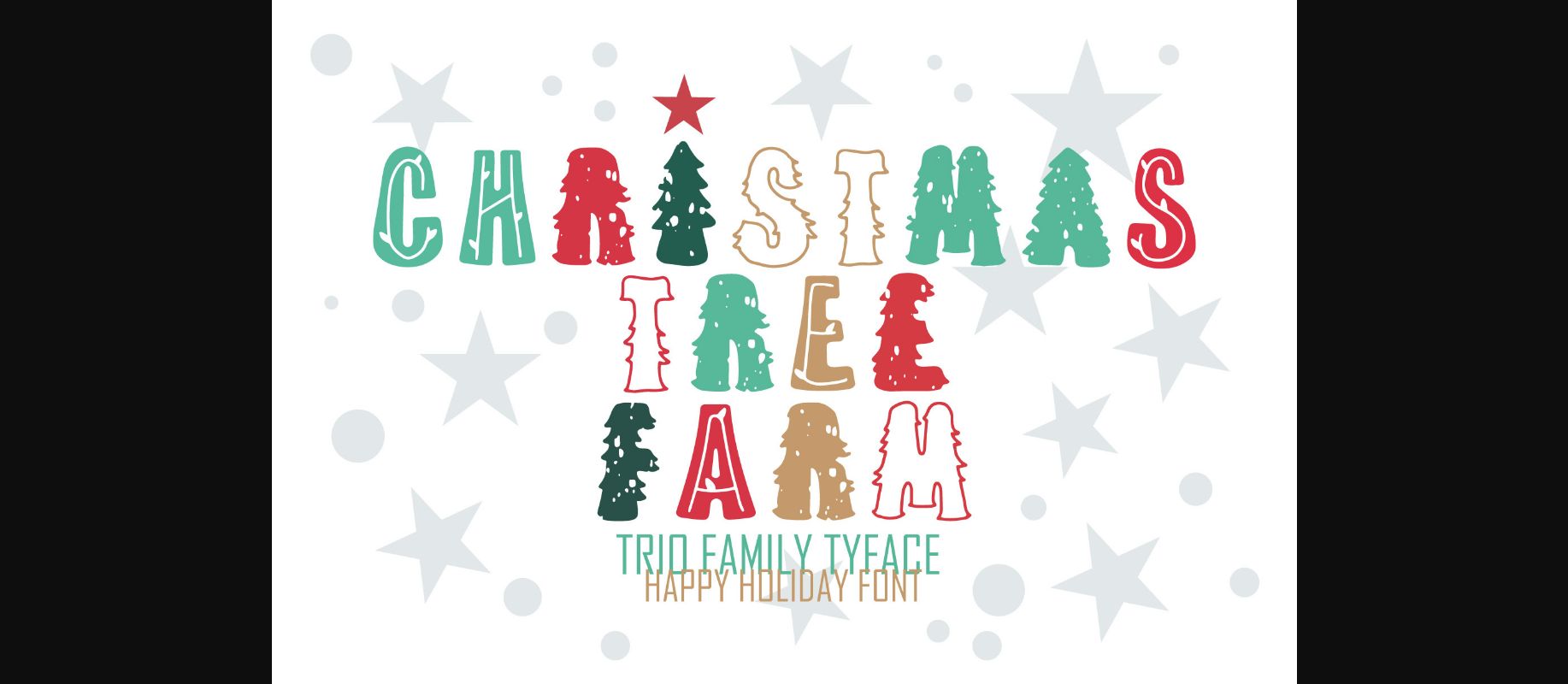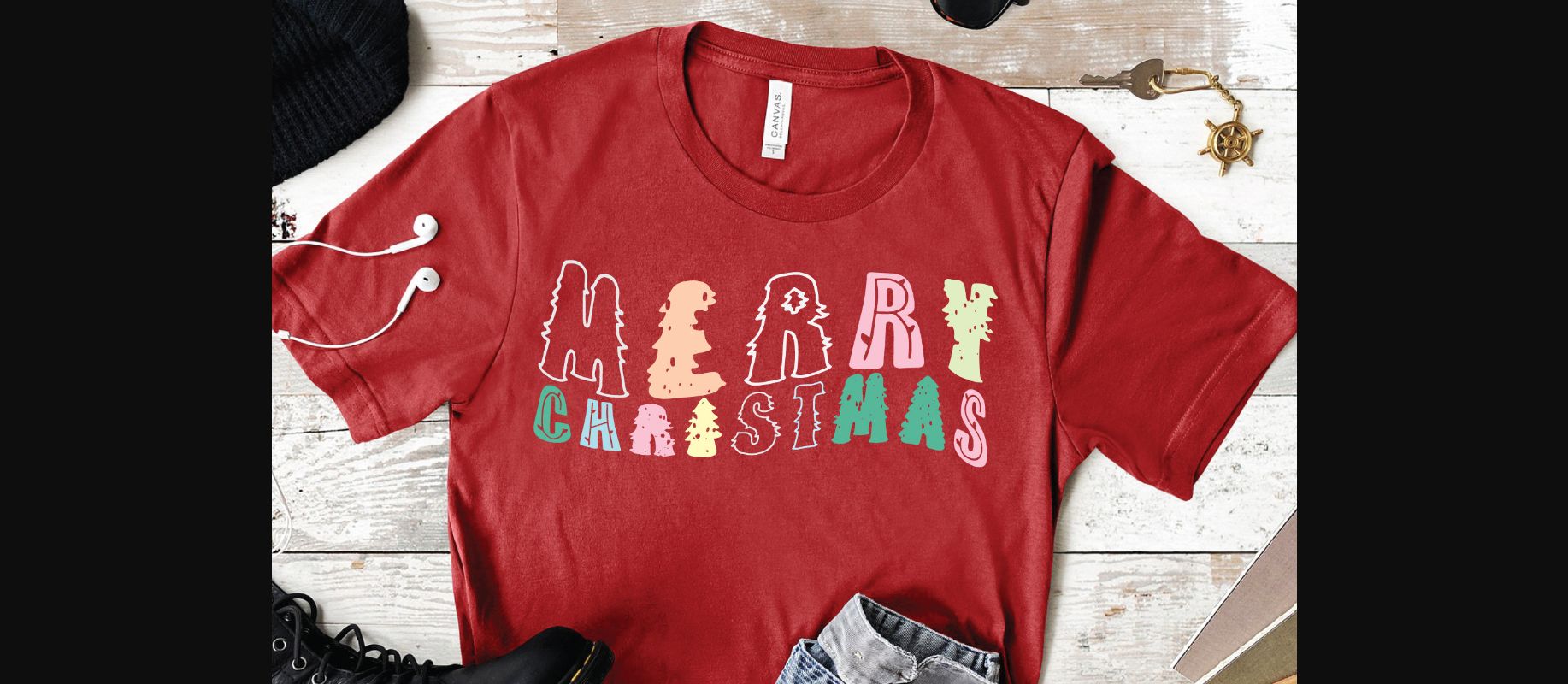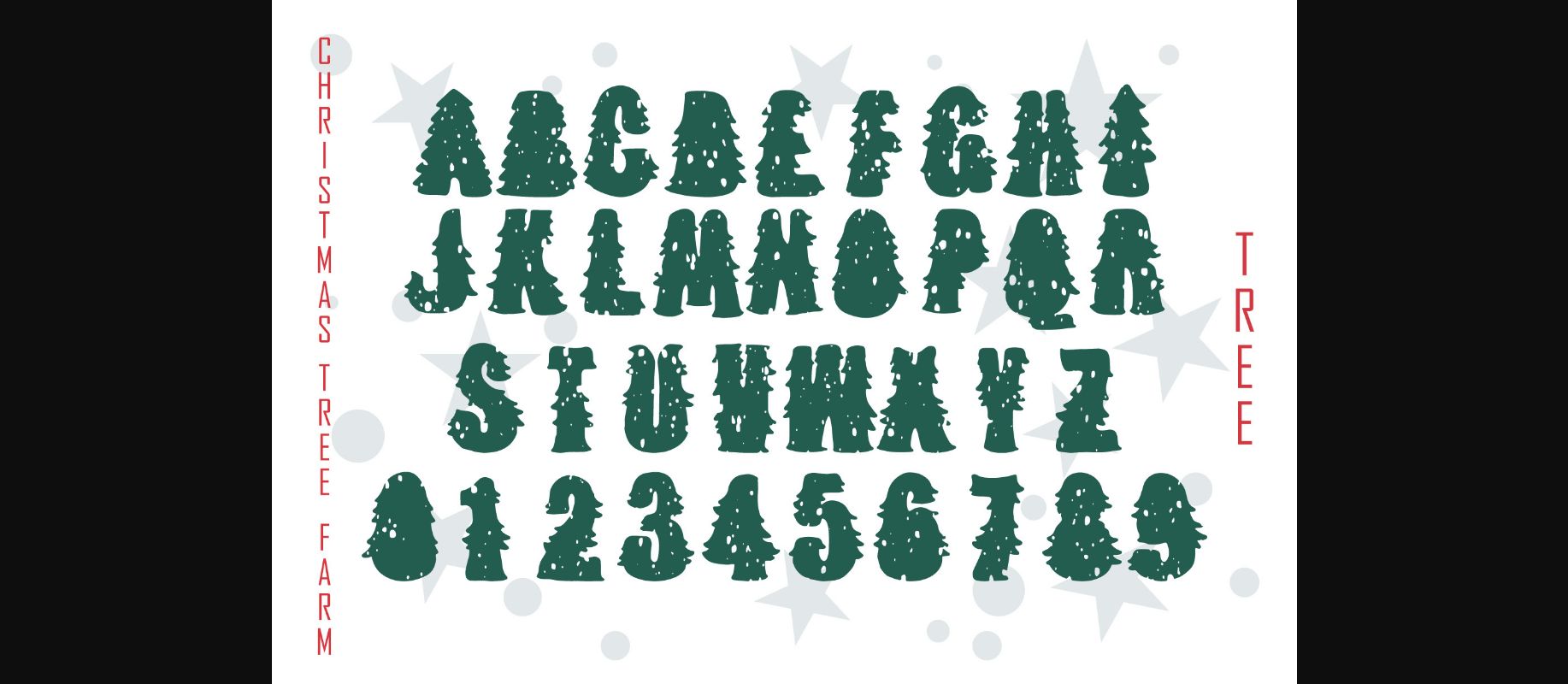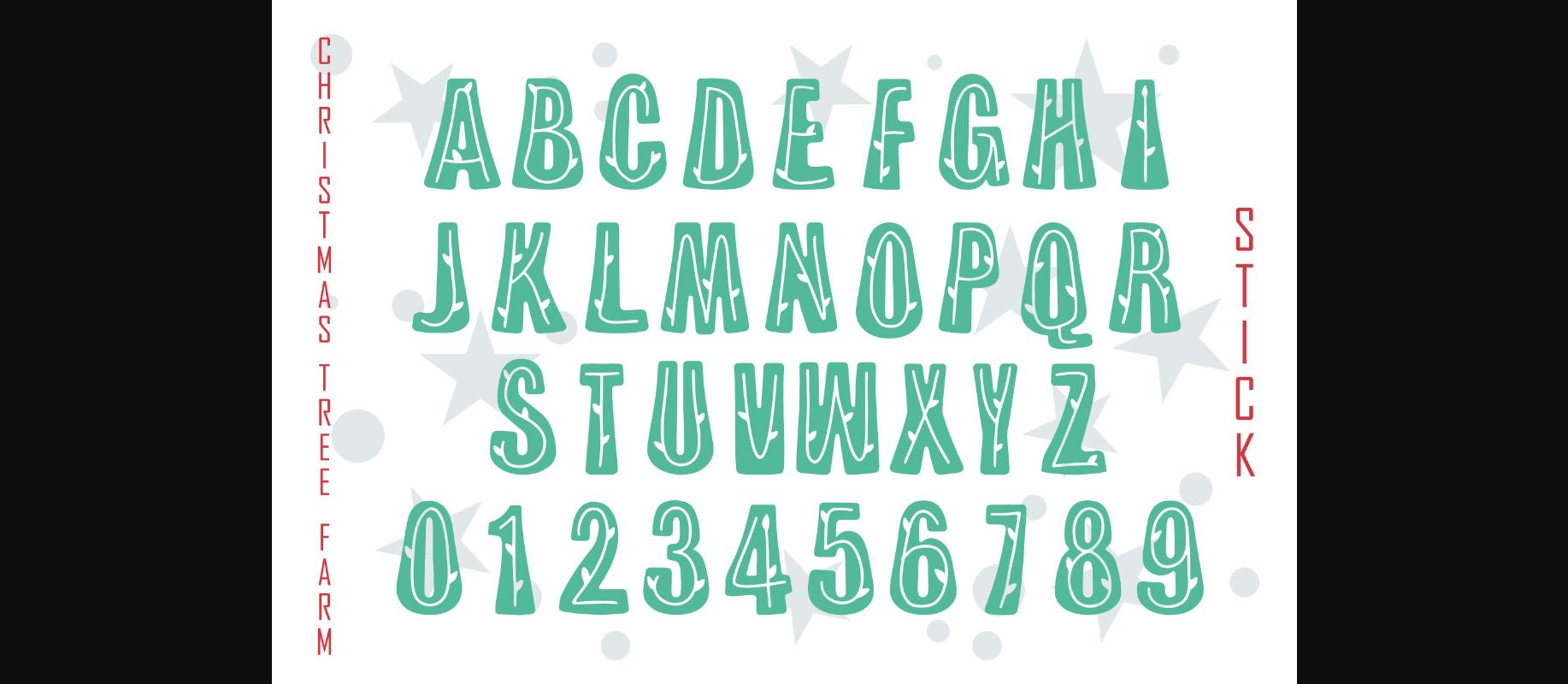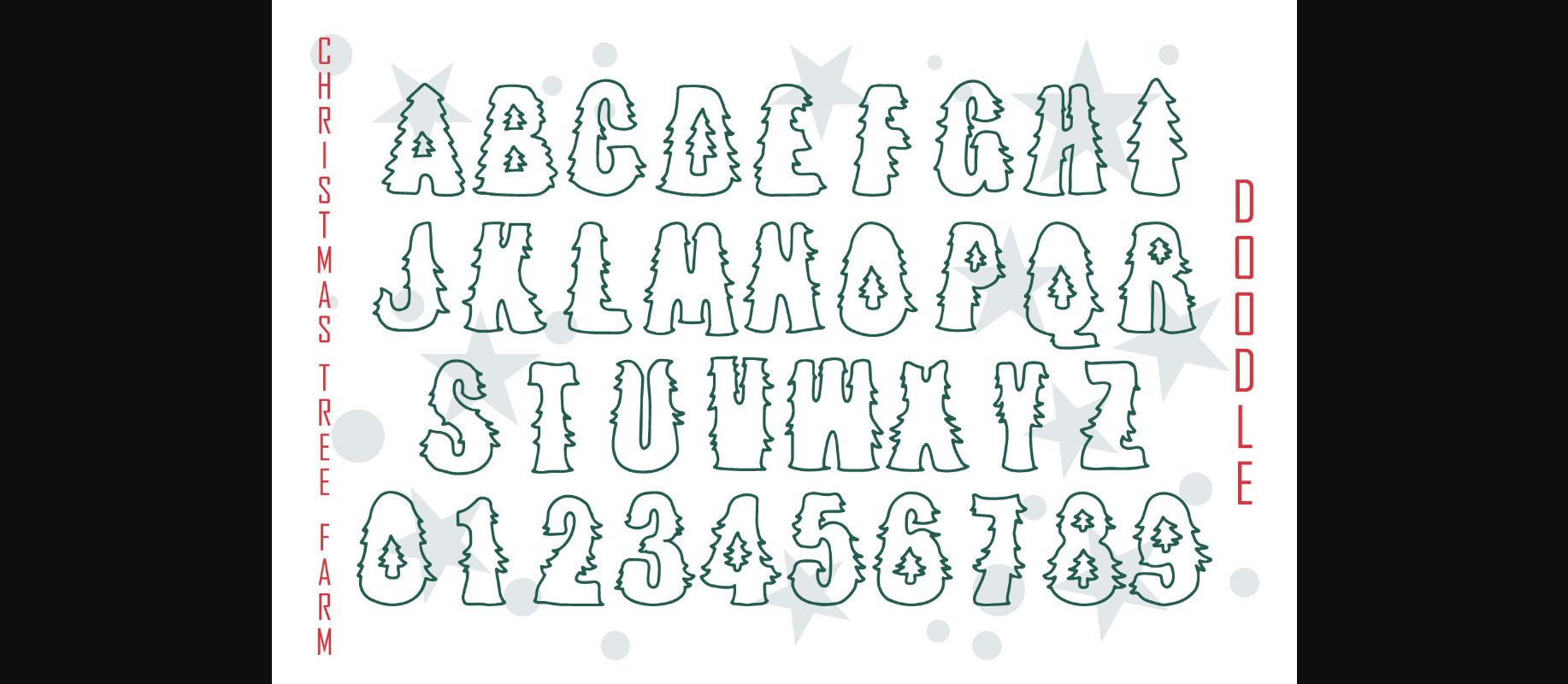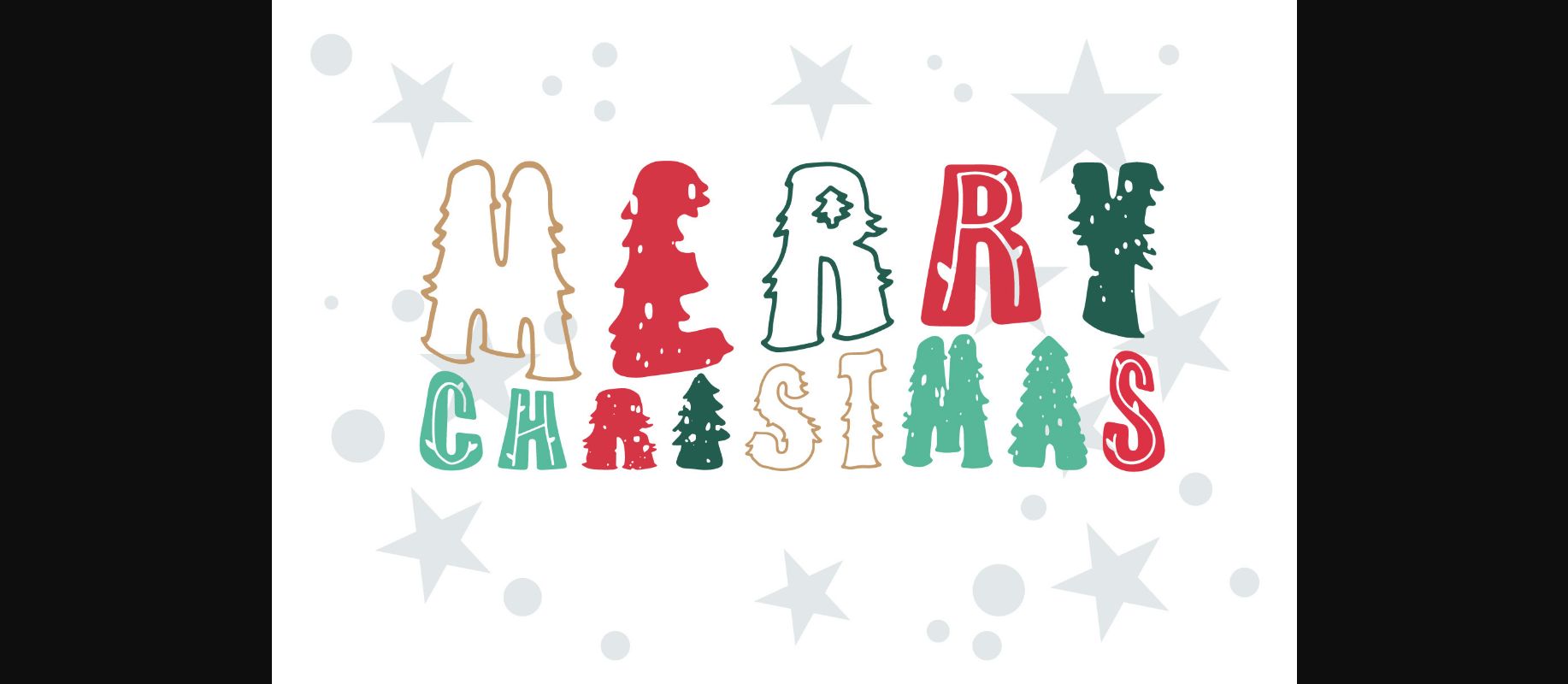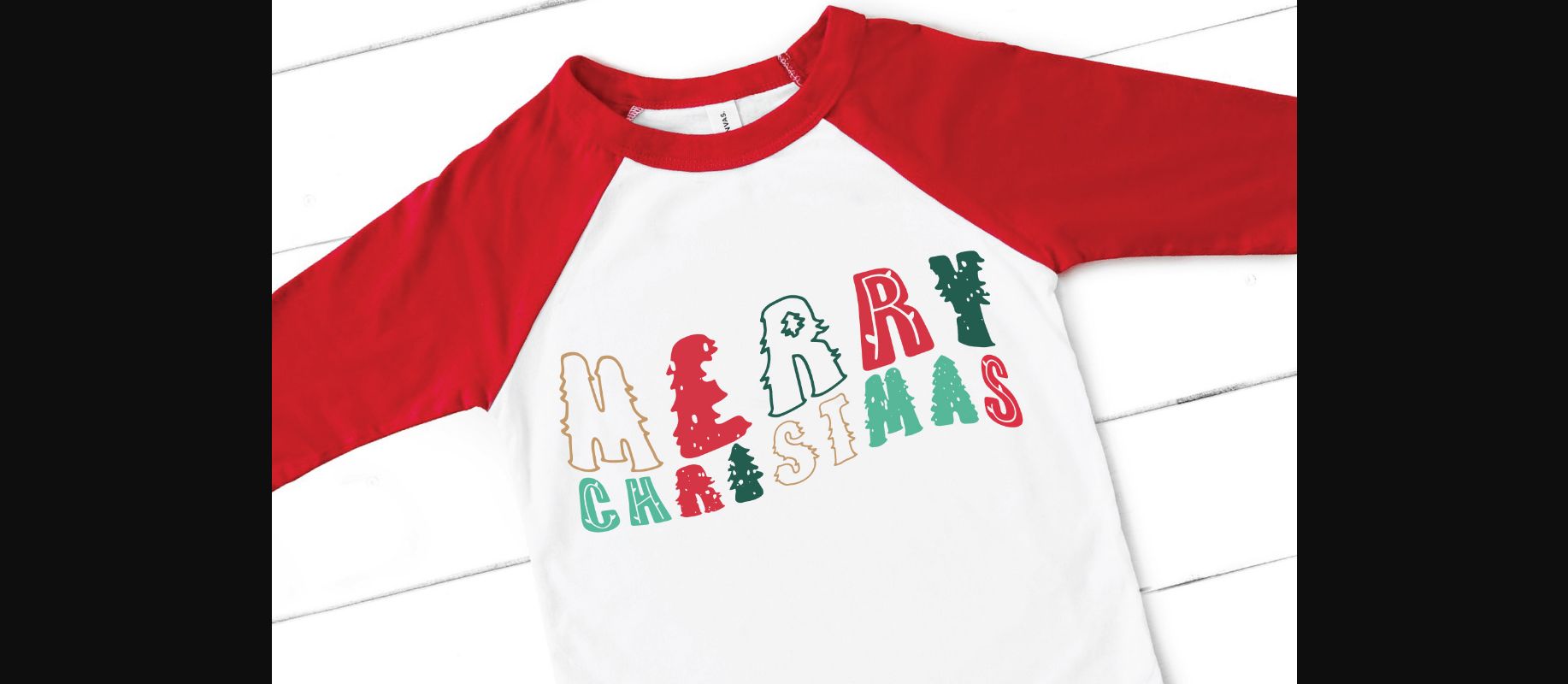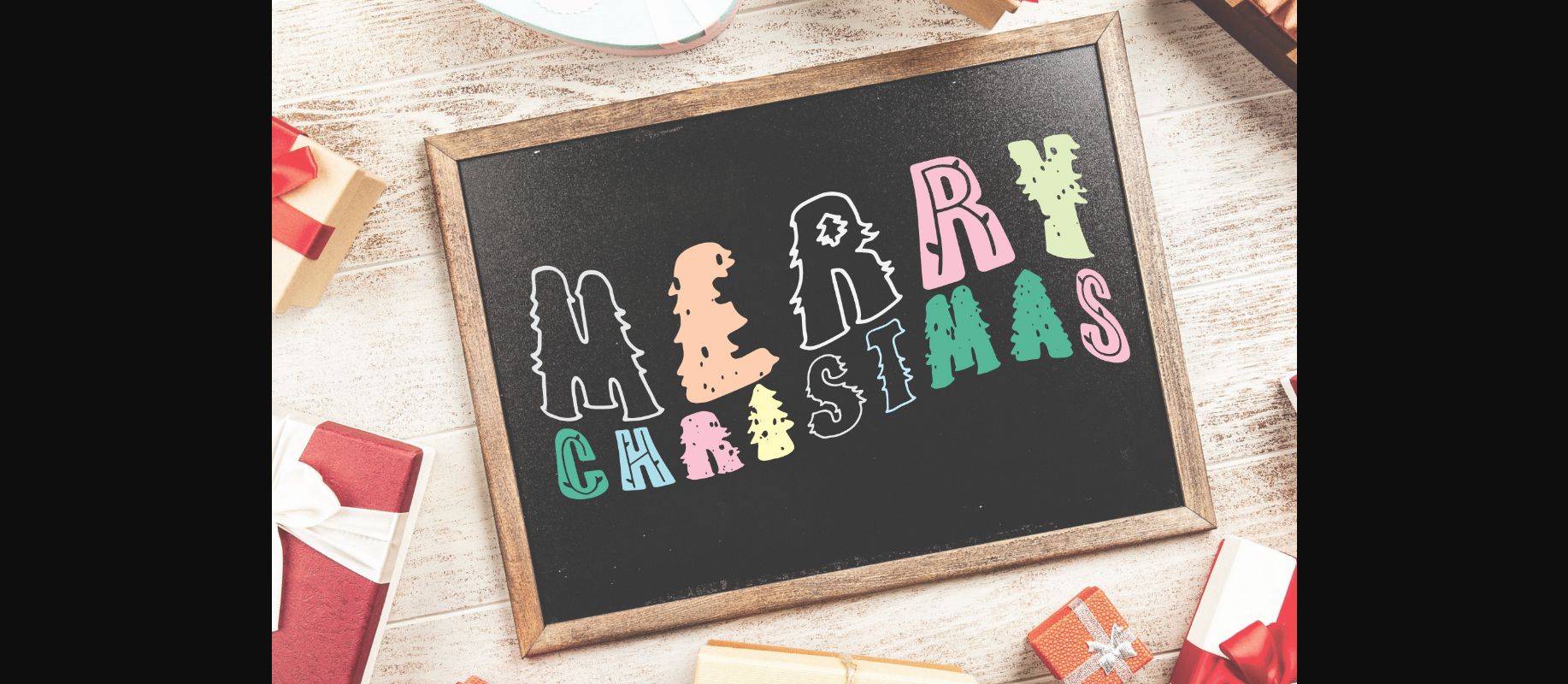
Christmas Tree Farm Trio is a cute and incredibly unique decorative font. It can be used for various design ideas, particularly those related to the Christmas Holiday.